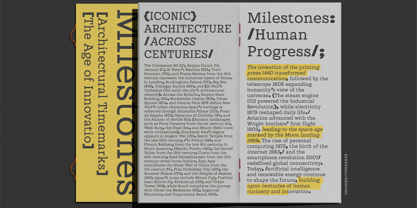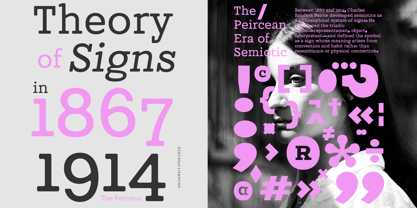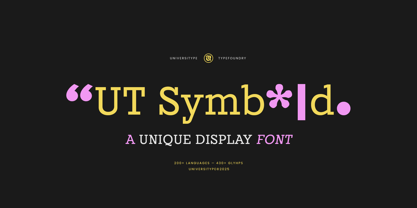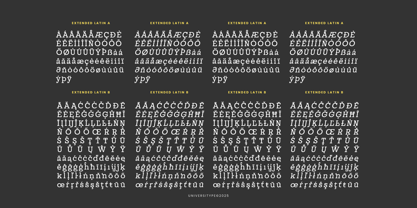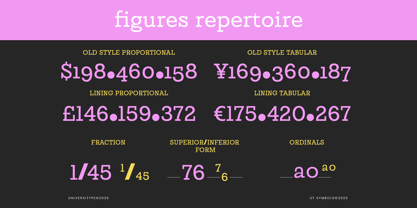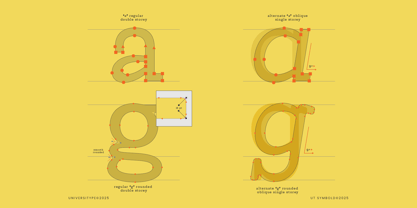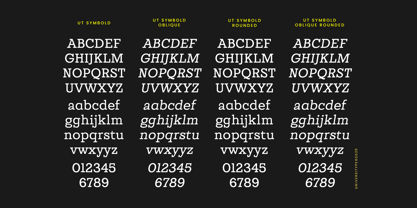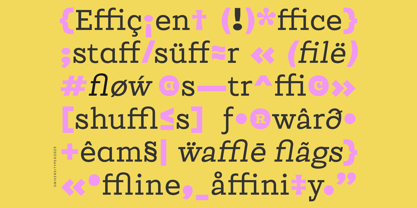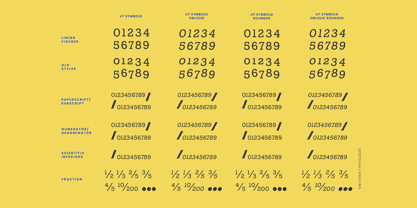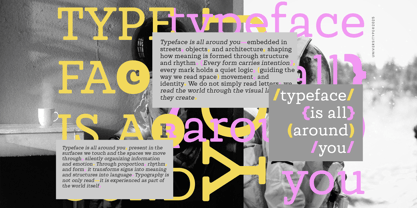
UT Symbold
Die Schriftfamilie UT Symbold wurde von Muh. Aswar, Andi Syahdang entworfen und von Universitype veröffentlicht. UT Symbold enthält 4 Stile und Familienpaketoptionen. Mehr über diese Familie
UT Symbold: A Playful Intersection of Type and Semiotics UT Symbold is a robust, character-rich display serif that challenges the boundaries between traditional typography and symbolic language. Designed by Universitype, it is a versatile "super-family" that blends high-utility legibility with an eccentric, maximalist personality. Whether you are using it for clean editorial layouts or chaotic, symbol-heavy experimental design, UT Symbold provides the tools to communicate beyond just words. Target Audience Graphic Designers & Typographers: Looking for a unique "hero" font for branding or poster work. Editorial Designers: Who need a typeface that can handle complex data, footnotes, and mathematical symbols with style. Creative Directors: Seeking a fresh, contemporary look for fashion, music, or technology campaigns. UI/UX Designers: Interested in using distinctive symbols and icons within a cohesive typographic system. Key Features Four Distinct Styles: Includes Regular, Oblique, Rounded, and Oblique Rounded, allowing for varied "textures" within a single project. Extensive Symbol Set: A vast repertoire of math symbols, punctuation, and abstract glyphs designed to integrate seamlessly with the letterforms. Advanced Figure Options: Supports Proportional and Tabular spacing for both Lining and Old Style figures. Superior Language Support: Covers over 200 languages with an extensive Extended Latin A and B character set. Smart Ligatures: Includes standard and discretionary ligatures for a professional, polished finish. Inspiration Behind the Design UT Symbold finds its soul in Peircean Semiotics—the study of signs and their meanings. Inspired by the "Theory of Signs" developed between 1867 and 1914, the design explores the relationship between the written word (the signifier) and the abstract symbol. It pays homage to the era of industrial innovation while maintaining a "minimal house" aesthetic that feels at home in the digital age. It’s a celebration of human progress, from the printing press to artificial intelligence. Usage Suggestions Bold Branding: Use the "Rounded" styles for approachable, modern identities or the "Regular" styles for a more sharp, academic feel. Experimental Posters: Leverage the heavy use of brackets, asterisks, and math symbols to create "typographic patterns" that double as art. Complex Layouts: Perfect for technical manuals, academic journals, or data-heavy infographics where symbols and numbers need to be as legible as the text. Apparel & Merchandise: The unique characters like the "flower" asterisk and oversized quotes make for stunning standalone graphics. Technical Details Glyph Count: 430+ glyphs per style. Language Support: 200+ Languages (Extended Latin). OpenType Features: Standard Ligatures: (ff, fi, fl, ffi, ffl). Numerical Forms: Fractions, Numerators, Denominators, Superscripts, Subscripts, and Scientific Inferiors. Case-Sensitive Forms: Optimized punctuation for all-caps settings.
Designer: Muh. Aswar, Andi Syahdang
Foundry: Universitype